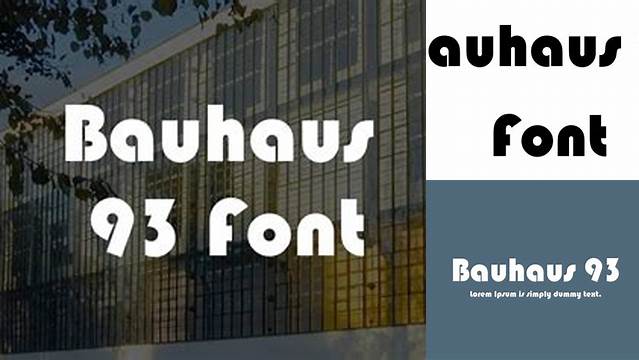
Hey guys! Ever admired the sleek, geometric look of a particular font and thought, "I need that!" Well, if you're a fan of the bold and striking aesthetic, chances are you've encountered Bauhaus 93. It's a font that just screams modern design, and thankfully, getting your hands on it is easier than you might think. This guide is all about the free download font Bauhaus 93, where to find it, how to use it, and a little history behind its awesome design. Let's dive in, shall we?
H2: A Deep Dive into the Bauhaus 93 Font Family
So, you've got your free download font Bauhaus 93, but do you know the story behind it? The Bauhaus 93 font isn't just a random collection of letterforms. It's deeply rooted in the design principles of the Bauhaus art movement, which flourished in Germany during the early 20th century. The Bauhaus movement was all about merging art, craft, and technology. It was a time of groundbreaking ideas. Bauhaus artists believed that design should be functional, accessible, and beautiful. This philosophy is clearly reflected in the Bauhaus 93 font. Its clean lines, geometric shapes, and overall simplicity make it a prime example of this design ethos. The font is immediately recognizable and has a distinctive personality. It is a free download font Bauhaus 93.
The Bauhaus 93 is a bold and impactful font, characterized by its rounded, almost bubble-like letterforms. Each character is designed to be easily legible. This makes it great for headlines, titles, and any place where you want to make a statement. Think of it as the design equivalent of a really good punchline. The font's simplicity also allows it to be incredibly versatile. You can pair it with many other font styles to create a dynamic and visually appealing design. The font's unique characteristics make it stand out. This bold aesthetic makes it ideal for catching the viewer's attention. Using a free download font Bauhaus 93 is the perfect solution.
Over the years, the Bauhaus 93 font has gone through some iterations, with various digital versions available. The version you'll typically find through a free download font Bauhaus 93 is very likely based on the original design principles. The core features remain the same, retaining its signature look. Itβs become a classic, a go-to choice for designers across various fields, from graphic design and branding to website design and advertising. So, the next time you see a striking headline or logo using Bauhaus 93, you'll know you're looking at a piece of design history. You can start using your free download font Bauhaus 93 now.
H3: Exploring the Design Philosophy Behind Bauhaus 93
Let's explore the design philosophy behind Bauhaus 93, which you're now equipped to use thanks to your free download font Bauhaus 93. Understanding the thought process behind the font can help you use it more effectively. It will also enhance your appreciation for its design elements. The font embodies the core principles of the Bauhaus art movement. Bauhaus designers believed in the beauty of functionality and the power of simplicity. These principles are reflected in every curve and stroke of the font. The movement sought to strip away unnecessary ornamentation, focusing instead on clean lines, geometric forms, and practical design. These characteristics are all present in the Bauhaus 93 font. By using this free download font Bauhaus 93, you're tapping into a legacy of innovative design.
At its heart, the Bauhaus 93 font is about minimalism. The designers reduced the letterforms to their essential elements. This made the font legible, efficient, and visually striking. There's no fuss or unnecessary flourishes. It's about presenting information in a clear and impactful way. This is what makes it so effective for headlines. Each character is meticulously crafted, ensuring the font's consistent appearance and seamless integration. The rounded shapes give it a friendly and approachable feel, balancing the boldness of its presence. When you are ready to use a free download font Bauhaus 93, consider all the unique characteristics that the font has.
Understanding the design philosophy behind Bauhaus 93 gives you a deeper understanding of when and how to use it. You can use the font to create designs that are both functional and visually appealing. The font will always look professional when used in the correct projects. Consider using the free download font Bauhaus 93 in your next design project.